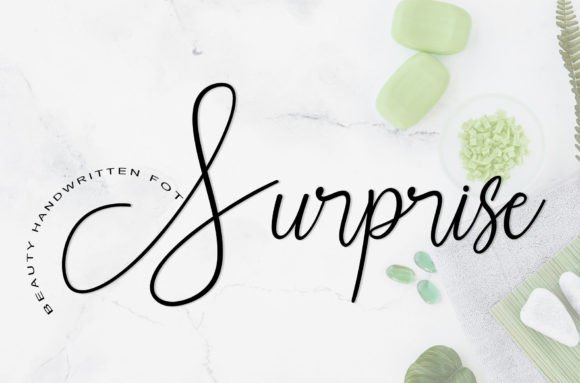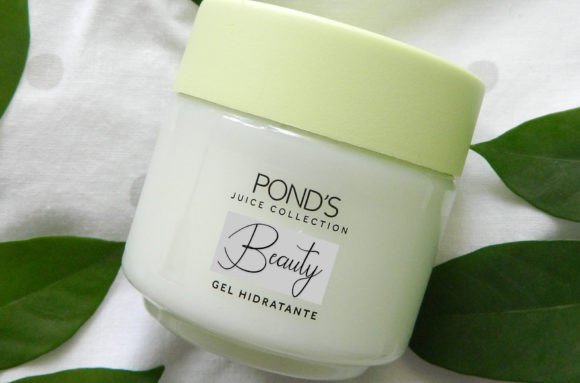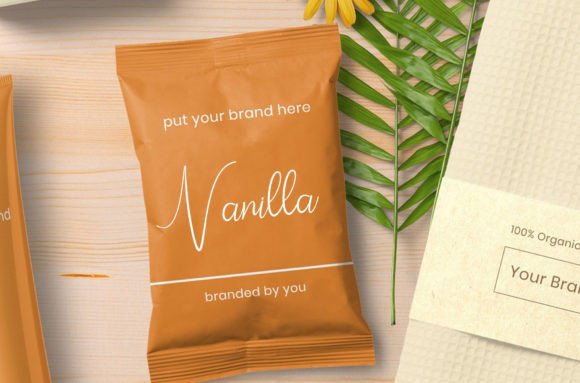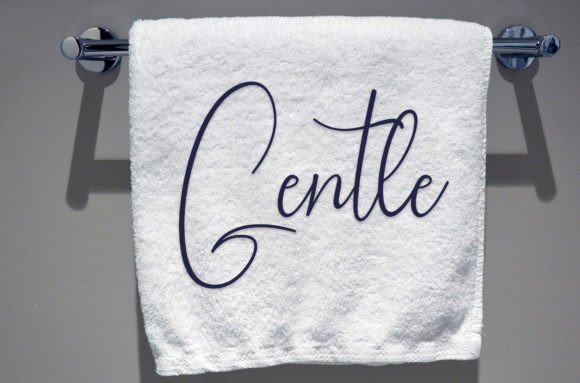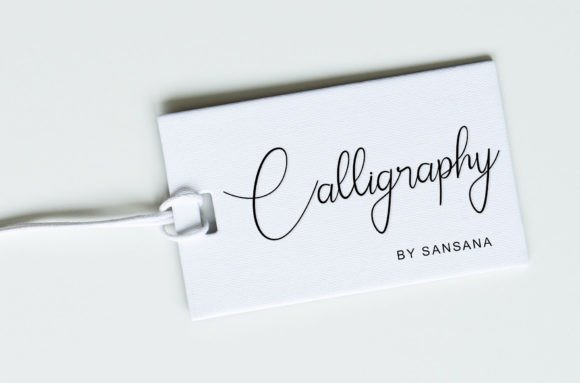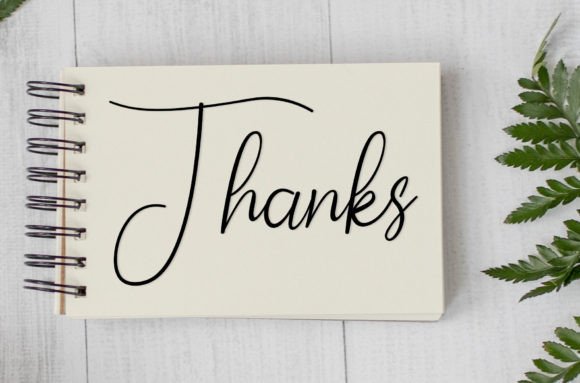
Surprise Font
About Surprise Font
Surprise Font is a dazzling script typeface that adds a refined, artistic flair to any project. This elegant handwritten font is carefully crafted with intricate details and smooth curves. It’s perfect for designs that need a special touch of sophistication and warmth.
Beautiful Handwritten Style
Surprise Font showcases stunning, flowing letterforms inspired by modern calligraphy. Each glyph has a graceful movement that feels natural and authentic. The smooth connections between letters make your text look cohesive and polished.
This font’s elegant style is ideal for projects where you want to highlight beauty and creativity. It’s expressive, but still easy to read, even in longer text blocks.
Versatile for Countless Applications
Surprise Font is designed to work well across many types of creative projects, including:
• Wedding Invitations: Set a romantic and luxurious tone that makes every event feel special.
• Branding: Build a memorable identity that feels refined and professional.
• Greeting Cards: Add a heartfelt, handwritten touch to personal messages.
• Product Packaging: Make labels, boxes, or tags look premium and unique.
• Social Media Graphics: Create attention-grabbing quotes, promotions, and announcements.
• Logos: Design an elegant brand mark that stands out from the crowd.
No matter the context, Surprise Font elevates your ideas with elegance.
Highly Detailed and Carefully Crafted
This font was meticulously designed to include fine details that make it truly shine. Subtle curves, balanced proportions, and harmonious spacing give it a professional finish.
Easy to Pair and Customize
Surprise Font pairs beautifully with clean sans-serif fonts. This contrast helps your script headlines stand out while keeping your overall design modern and balanced.
For example, you can combine Surprise Font with a minimal body text to create an editorial look. Or pair it with a bold serif for a vintage-inspired aesthetic.
Make Every Design Memorable
Adding Surprise Font to your toolkit ensures you always have a go-to option for designs that need to feel classy and special. Whether you’re designing for personal projects or professional brands, this font’s graceful style and rich detail make a lasting impression.
Its timeless elegance works across seasons and trends. Surprise Font helps your work look polished, cohesive, and unforgettable.